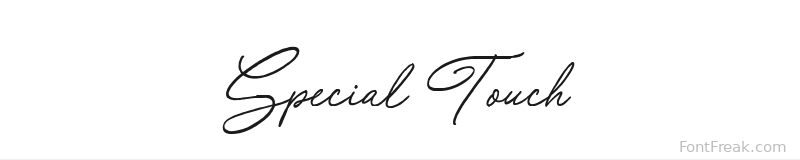
Special Touch
Special Touch by BLKBK Fonts is a stunning script font that exudes elegance and charm. This decorative typeface features a fluid, handwritten style, characterized by its graceful curves and expressive strokes. The medium stroke weight provides a soft yet impactful presence, making it perfect for a variety of design projects. Its moderate contrast adds depth and visual interest, while the ample spacing between letters enhances readability, ensuring that your text stands out beautifully.
This font is particularly well-suited for wedding invitations, where its romantic flair can set the tone for special celebrations. It also shines in the realm of branding, making it an excellent choice for logos and packaging in boutiques or artisanal shops. Restaurant menus can benefit from the warm, inviting aesthetics of the Special Touch font, helping to create a memorable dining experience. Additionally, it works wonderfully for greeting cards and personalized stationery, adding a unique touch to any correspondence.
What truly sets the Special Touch font apart is its ability to convey emotion through typography. With its elegant curves and flowing lines, it captures the essence of personalization, making it a go-to choice for projects that require a special flair. Download the Special Touch font free today and bring your designs to life with a unique style that leaves a lasting impression.